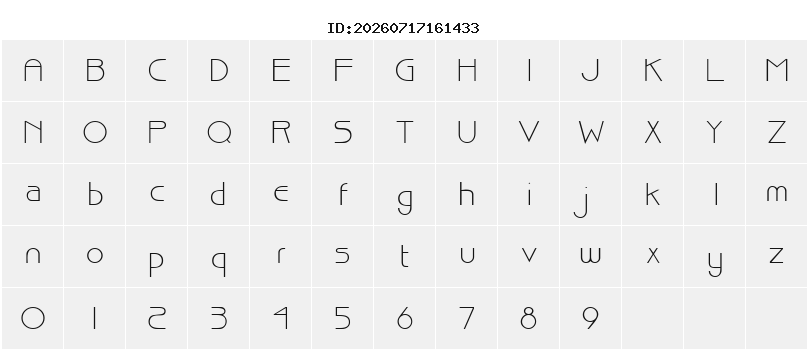
Biscuit Preview
• Font Name: Biscuit
• Full Font Name: Biscuit-Regular
About Biscuit.ttf
Biscuit.ttf is a modern, elegant sans-serif font designed for ultimate readability and visual harmony. Perfect for branding, headlines, web design, and print materials.